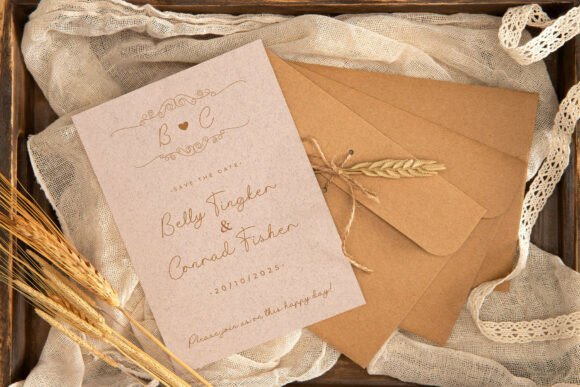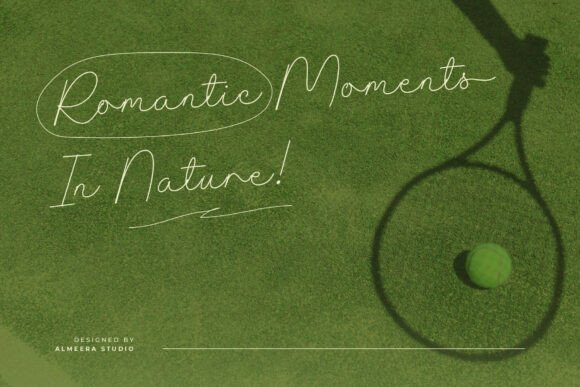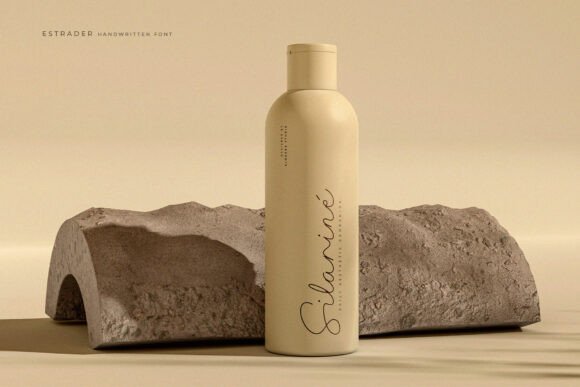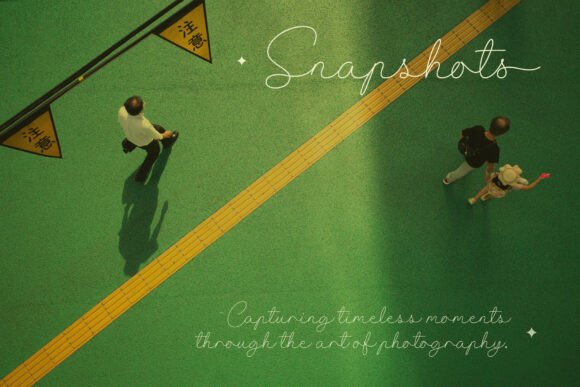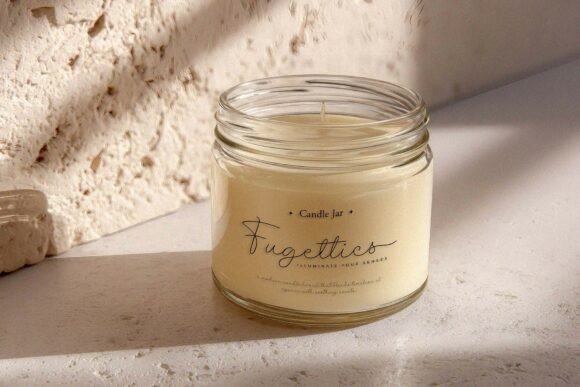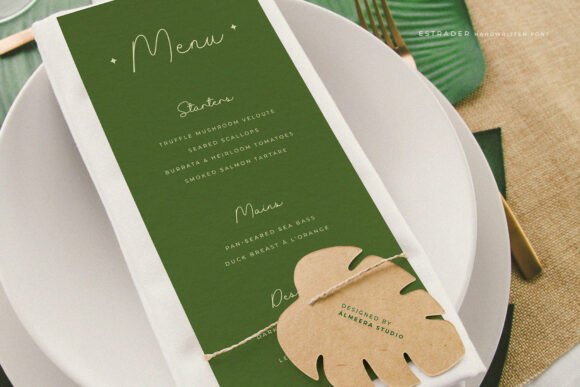
Estrader Font: Elevate Your Design with Elegant Simplicity
In the world of typography, finding the perfect font that embodies both simplicity and elegance can be a daunting task. However, look no further than Estrader, a beautiful handwritten script font that is sure to transform your designs with its warm, friendly, and personal aesthetic. With its fine monoline strokes and naturally flowing rhythm, Estrader is the ideal choice for designers and crafters seeking to add a touch of authenticity and charm to their projects.
The Essence of Estrader Font
Estrader is more than just a font; it’s a design element that brings a soft yet confident personality to your typography. Its fine monoline strokes give it a delicate and refined appearance, while its naturally flowing rhythm adds a sense of movement and fluidity. This unique combination makes Estrader perfect for a wide range of design applications, from branding and invitations to quotes, packaging, stationery, and creative projects.
Key Features of Estrader Font
- Handwritten Script Style: Estrader boasts a beautiful handwritten script style that adds a personal touch to any design.
- Fine Monoline Strokes: The font’s fine monoline strokes provide a delicate and refined appearance, perfect for designs that require elegance and sophistication.
- Naturally Flowing Rhythm: Estrader’s naturally flowing rhythm gives it a sense of movement and fluidity, making it ideal for designs that need to convey a sense of dynamism.
- Alternates & Ligatures: Estrader features alternates and ligatures, offering flexibility and sophistication in every letterform. This allows designers to create unique and customized typography that stands out.
- Multilingual Support: With complete multilingual support, Estrader is versatile and can be used for designs that require text in various languages.
Estrader is designed to meet the needs of designers and crafters who seek to create authentic and charming designs. Whether you’re working on a branding project, creating custom invitations, or designing packaging, Estrader is the perfect choice. Its warm and friendly aesthetic makes it ideal for designs that require a personal touch, while its elegant and sophisticated appearance ensures that it can be used in a wide range of design applications.
Use Cases for Estrader Font
- Branding: Use Estrader to create a unique and memorable brand identity that stands out from the crowd.
- Invitations: Add a touch of elegance and sophistication to your invitations with Estrader’s beautiful handwritten script style.
- Quotes: Use Estrader to create inspiring and visually appealing quotes that convey your message with style.
- Packaging: Elevate your packaging design with Estrader’s unique and charming aesthetic.
- Stationery: Create custom stationery that reflects your personality and style with Estrader.
- Creative Projects: Use Estrader to add a touch of authenticity and charm to your creative projects, such as art, illustrations, and crafts.
Estrader font is a beautiful and versatile design element that can elevate your designs with its elegant simplicity. With its fine monoline strokes, naturally flowing rhythm, and features like alternates and ligatures, Estrader is perfect for designers and crafters seeking to create authentic and charming designs. Whether you’re working on a branding project, creating custom invitations, or designing packaging, Estrader is the ideal choice. So why wait? Discover the power of Estrader font and take your designs to the next level.